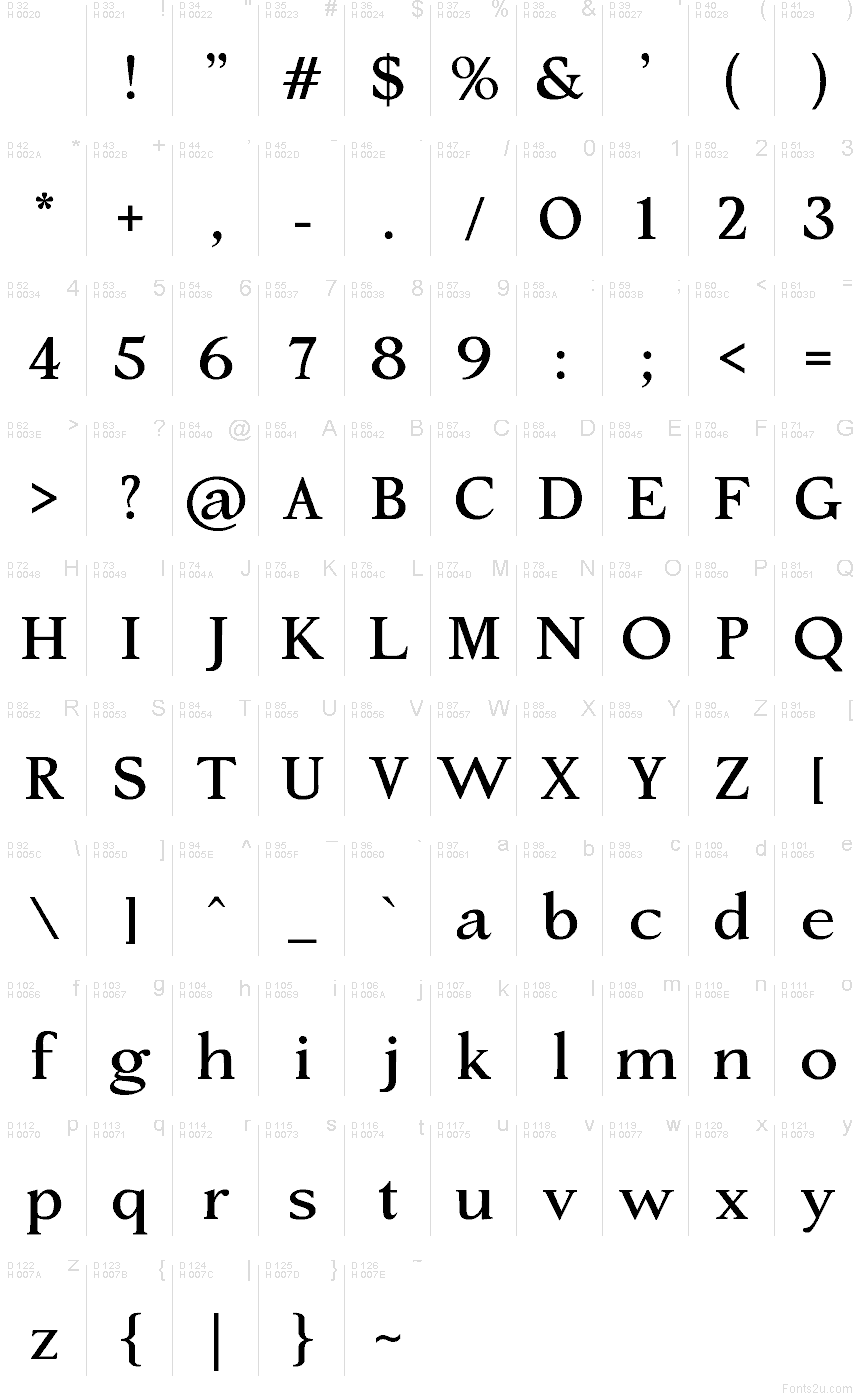
Silent Citadel font by Muhamad Fikry Nuralif of Fikryal Studio is a free serif font, and this typeface earns its name with calm authority. The letterforms feel carved and steady-crisp hairlines, confident thick strokes, and generous spacing that keeps long words readable while still looking refined. It has a classic, bookish gravity without turning fussy.
Using Silent Citadel works beautifully for book covers, editorial headlines, museum or gallery branding, luxury packaging, film titles, event posters, and elegant logo wordmarks. Set it a touch larger with a bit of extra tracking to let the serifs breathe, and pair it with a clean sans like Inter or Helvetica for supporting text-this free font stays the anchor.